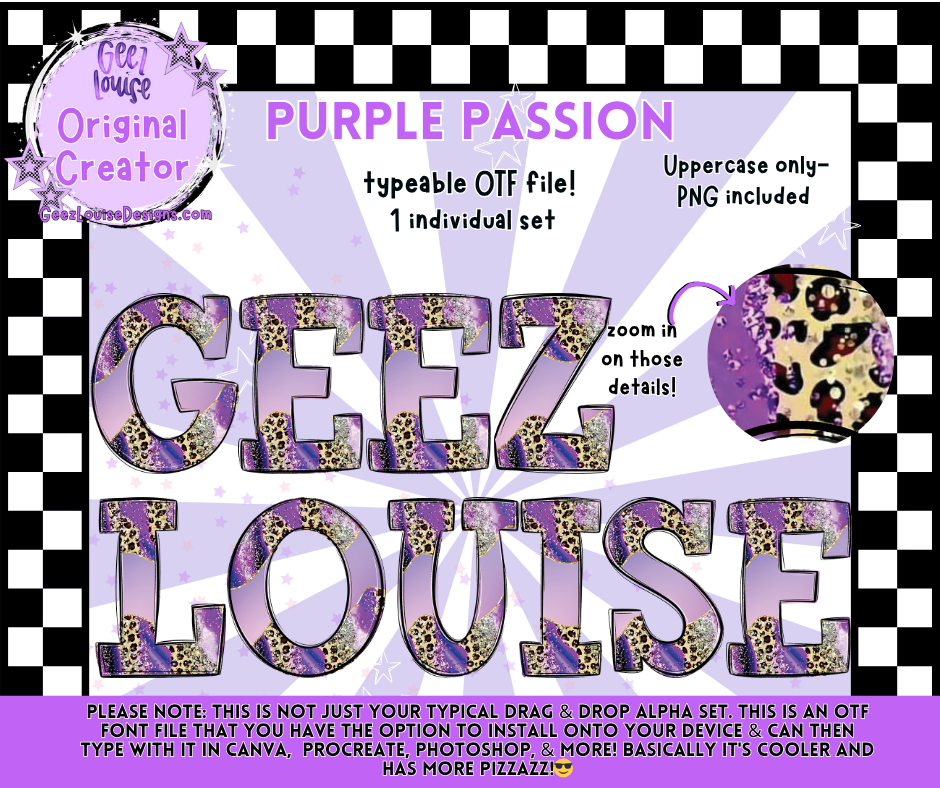
Purple Passion Typeable OTF Font + PNG Set
Turn your text into pure attitude with the Purple Passion Typeable OTF Font! 💜✨
This bold and vibrant font blends rich purple tones with grunge-inspired patterns and subtle glitter detailing for a look that’s both fierce and fun. It’s a fully typeable OTF file — install it on your device and type instantly in Canva, Procreate, Photoshop, and more! Each uppercase letter is packed with unique texture and edgy detail that stands out in any design.